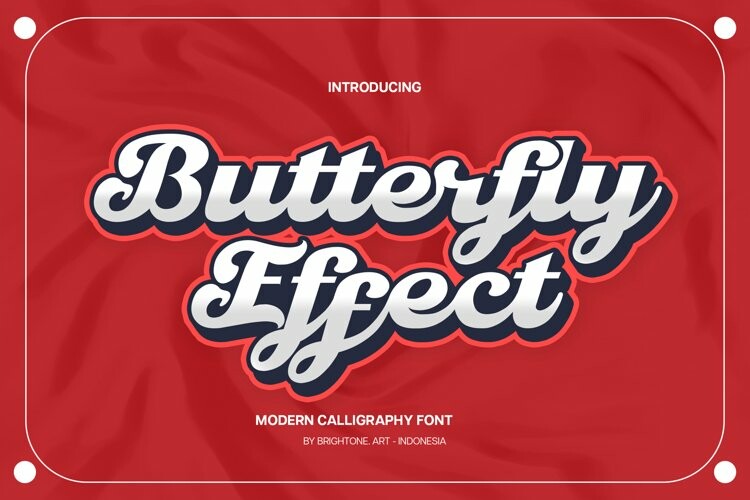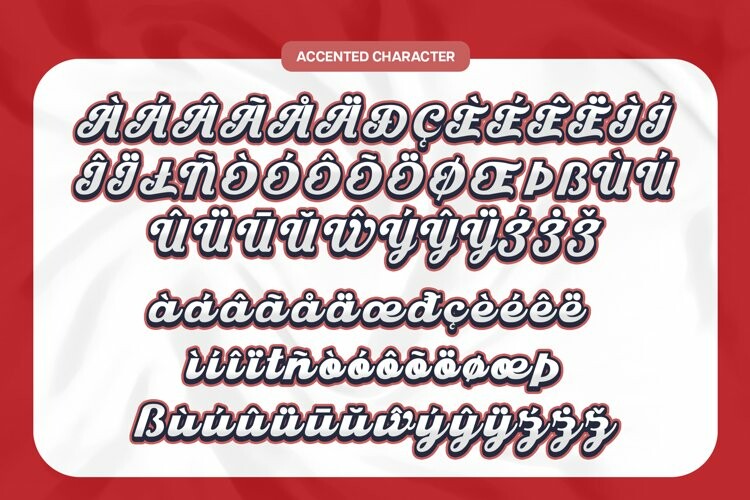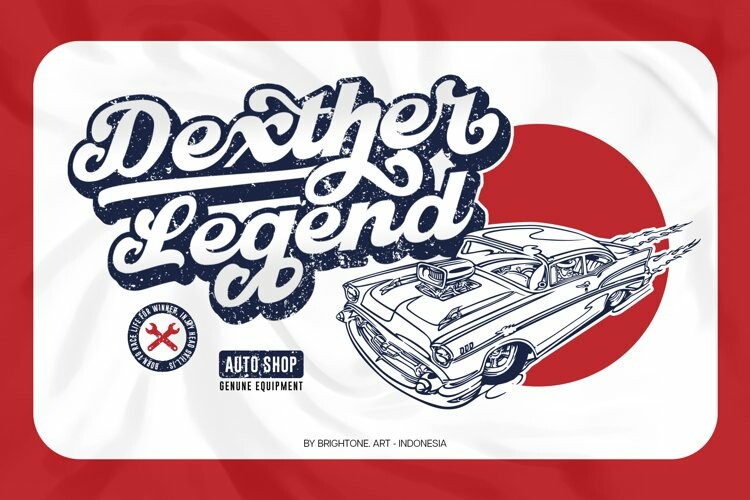
Butterfly Effect – Modern Calligraphy Font
Butterfly Effect - Modern Calligraphy FontBUTTERFLY EFFECT is modern calligraphy script font with bold shapes.
BUTTERFLY EFFECT font is suitable to use for all purpose for your logo lettering, logo, label, packaging, sticker, branding and many more.